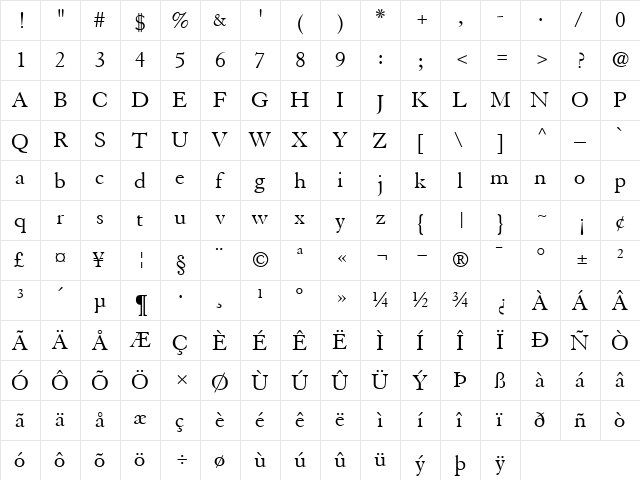
GranjonRoman Roman
Design Context for GranjonRoman Typeface
GranjonRoman offers clean, dependable letterforms without strong stylistic allegiance, making it a practical choice for designers who need flexibility.
Pro Tip: Use GranjonRoman in both headline and body roles to test its range before committing to a single application.